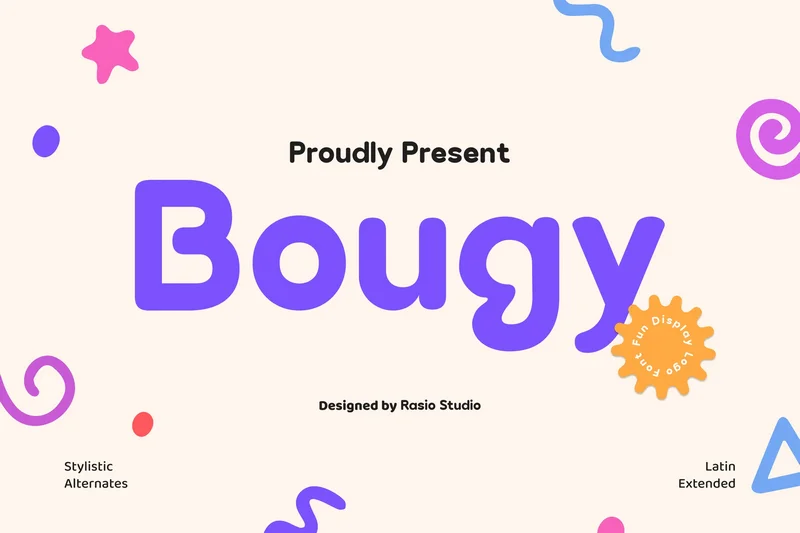
Bougy Playful Rounded Display Font
Bougy Playful Rounded Display Font is a cheerful and soft sans-serif typeface with smooth, rounded edges and fun character shapes. Its friendly personality and modern geometric balance make it ideal for eye-catching headlines, logos, and packaging. Bougy includes uppercase, lowercase, numbers, punctuation, and supports stylistic alternates and ligatures for creative variation. With multilingual support and clean readability, it adds a joyful and approachable touch to every design project.
Relevance and Use Cases is perfect for children’s branding, packaging design, logo creation, social media visuals, poster titles, digital artwork, stationery design, product labels, and creative marketing projects that need a soft, fun, and welcoming vibe.
Main Features
Ligatures & Alternate
Numeral & Punctuations